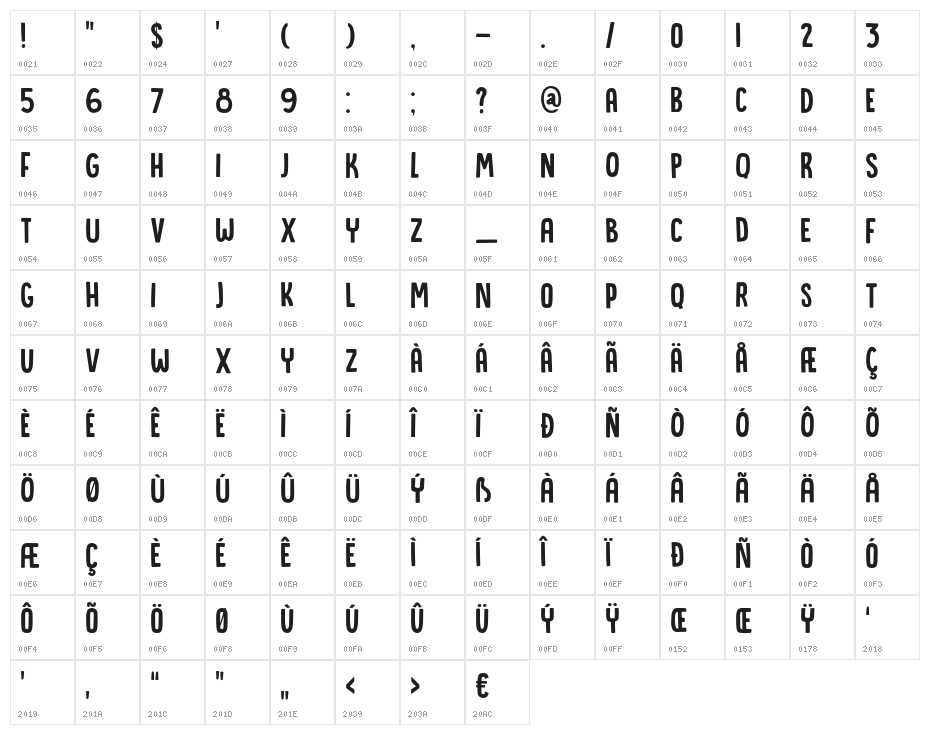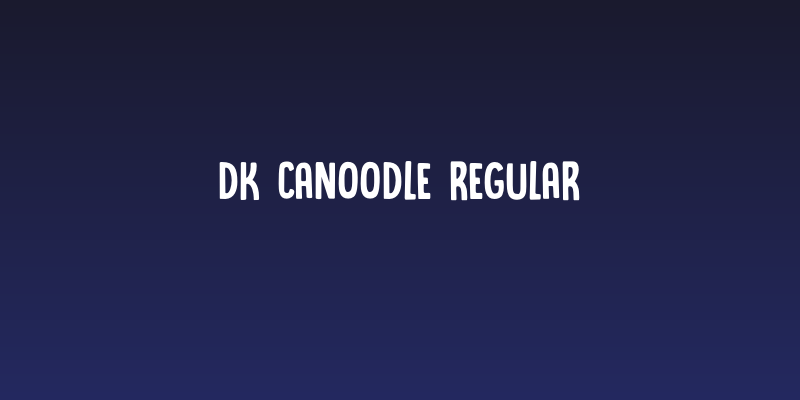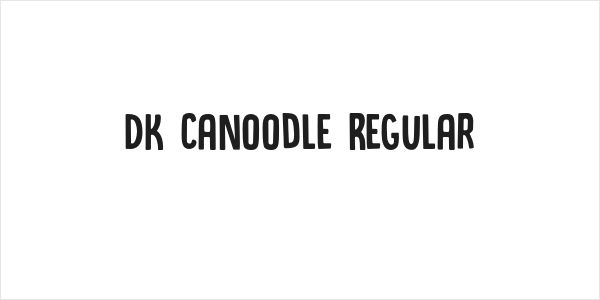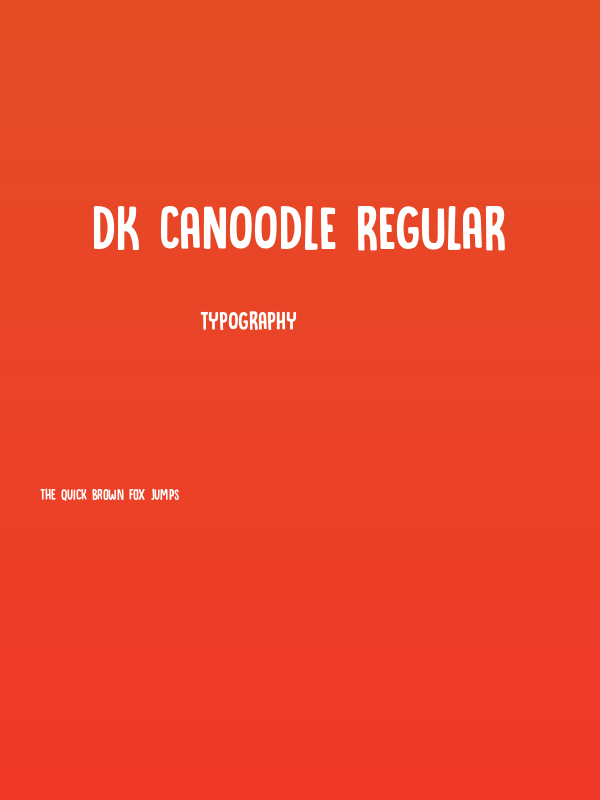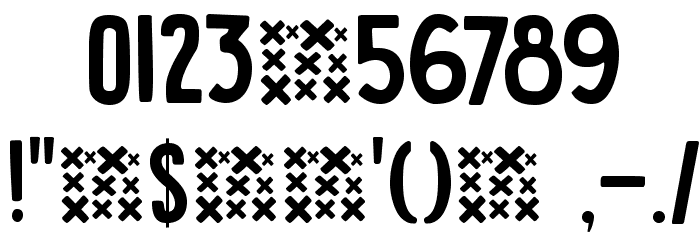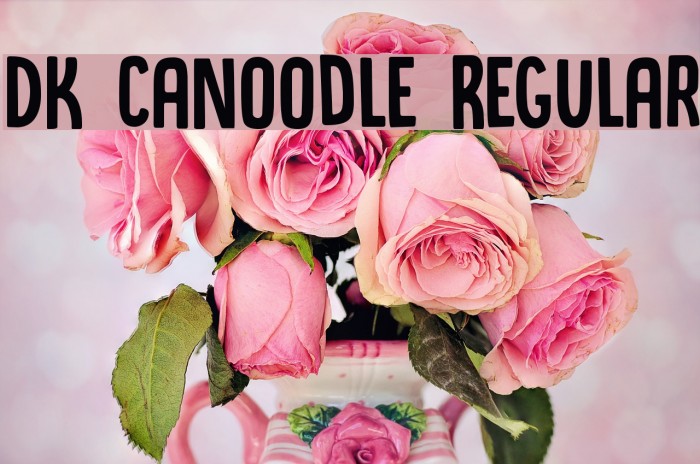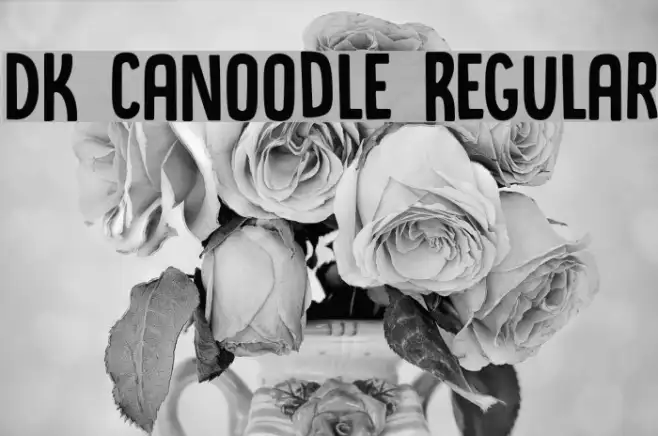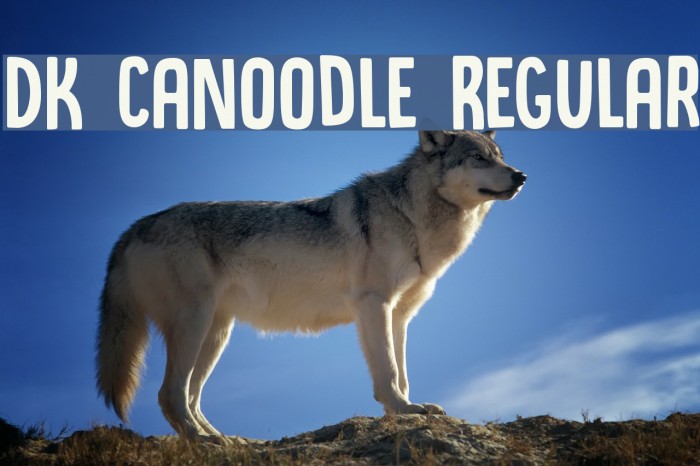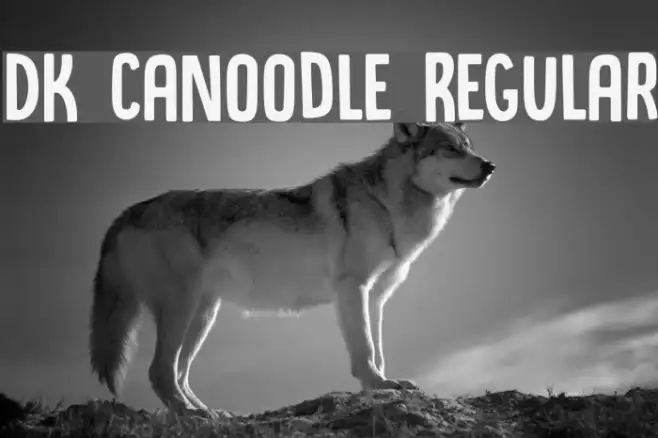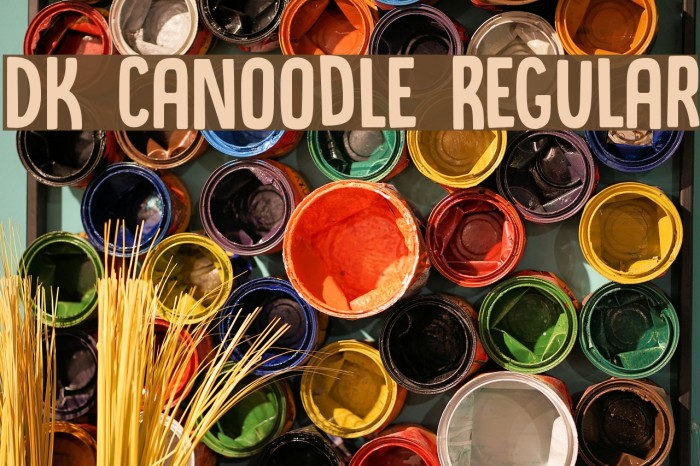
DK Canoodle Regular Font
DK Canoodle Regular Description
This font features a playful and bold design with rounded edges and a slightly condensed appearance. The characters are uniformly thick, providing a consistent and solid look across all letters and numbers. The uppercase and lowercase letters maintain a cohesive style, with a slight whimsical touch that adds personality. The numerals are clear and easy to read, matching the overall aesthetic. Special characters are included, maintaining the same playful and bold characteristics. This font is ideal for projects that require a fun and engaging visual element.
| Overall Style | Playful, Modern |
| Proposed Projects | Ideal for children's books, playful branding, posters, and social media graphics. |